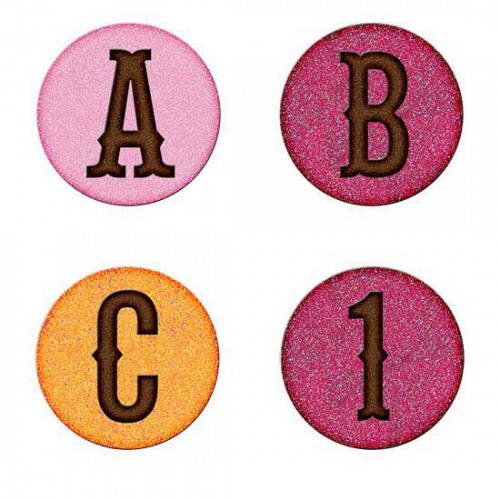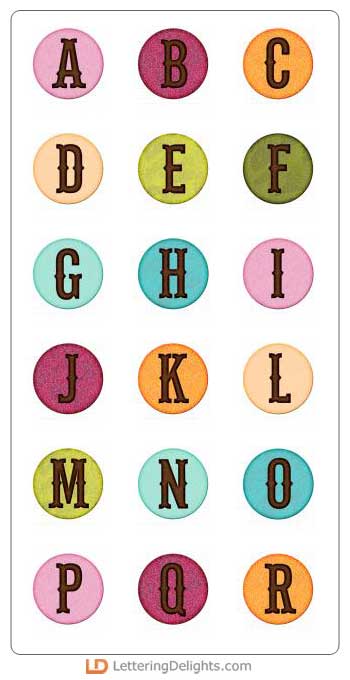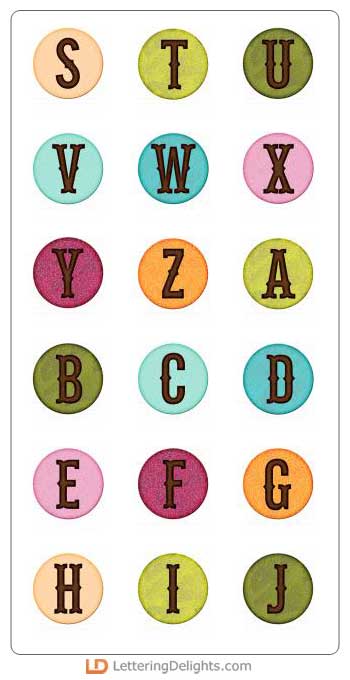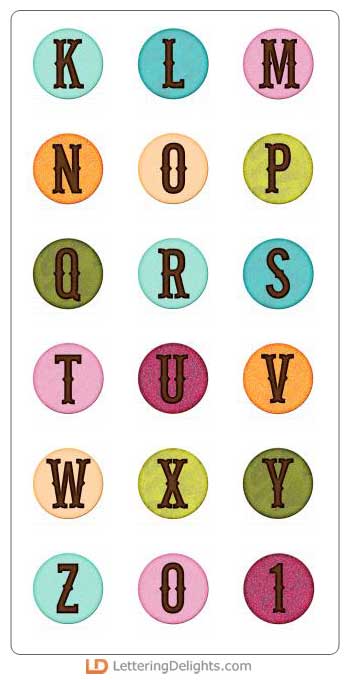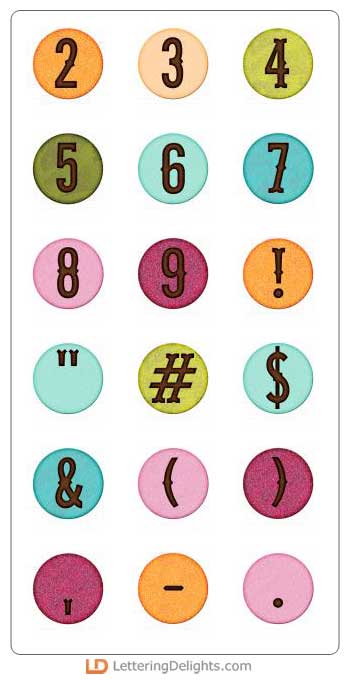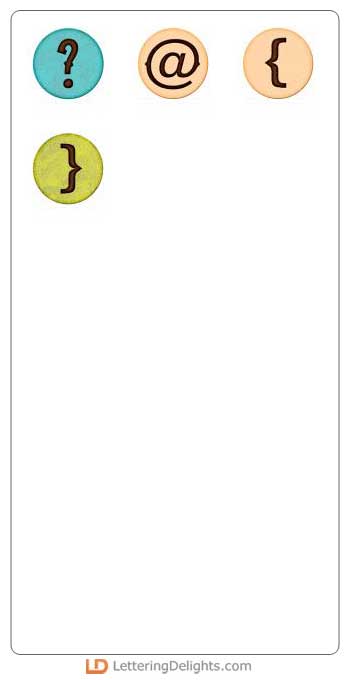
The Sparkles and Sprinkles alphabet is a quick way to add a little 'life to the party' on all your creations--from invitations and favors to decorations and memory pages. With lots of bright colors and a fun dot shape, each character has a sprinkling of sparkle that really says, "Let's Celebrate!"